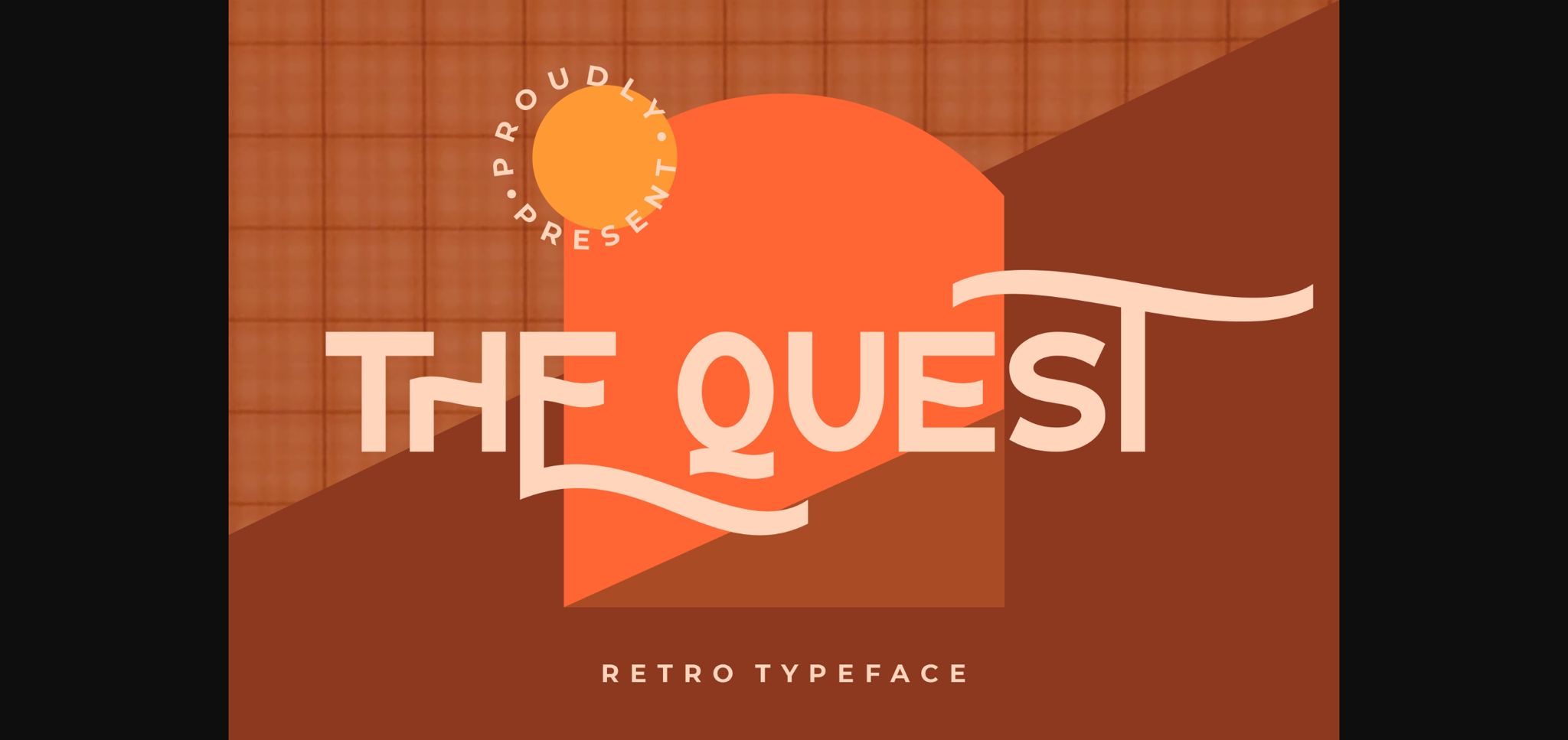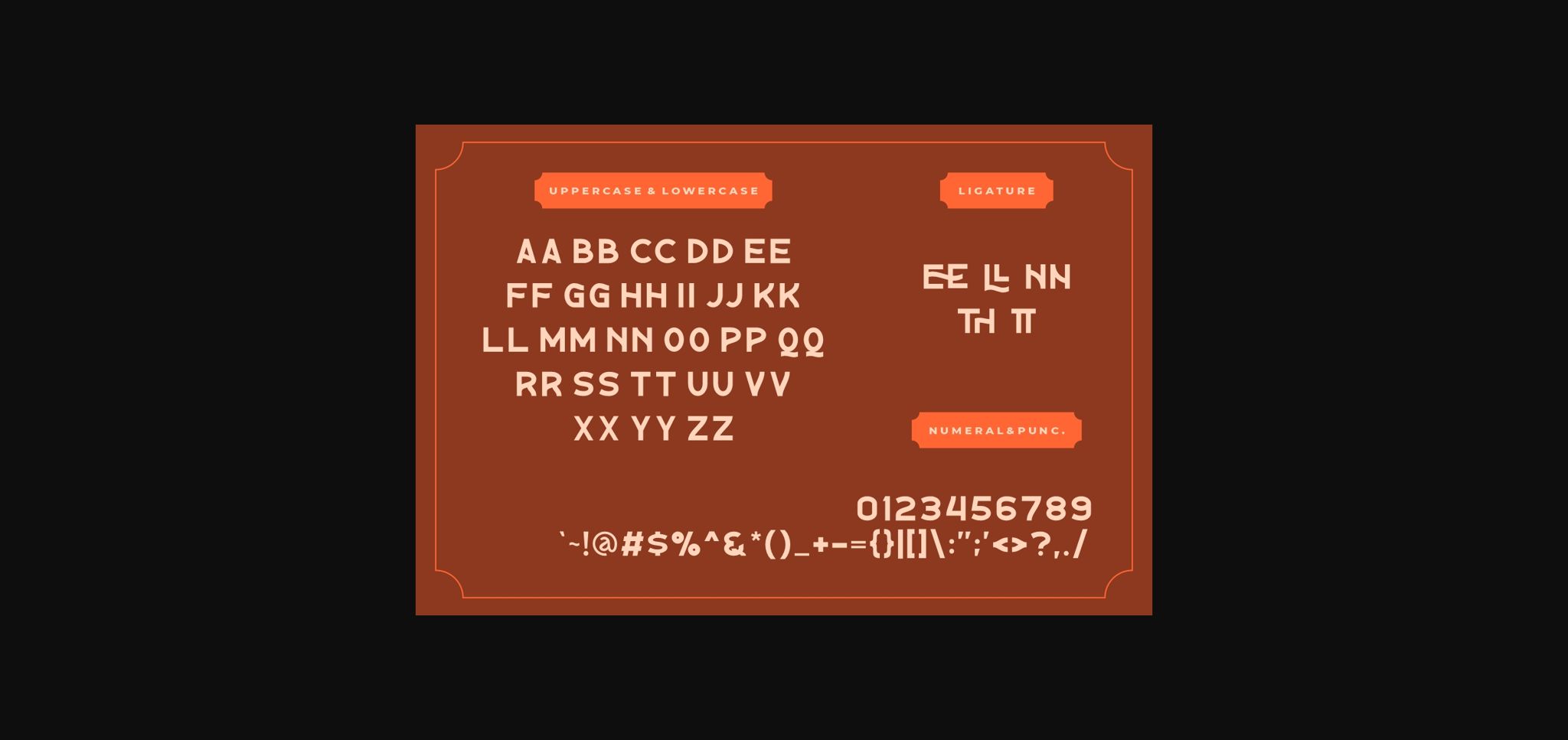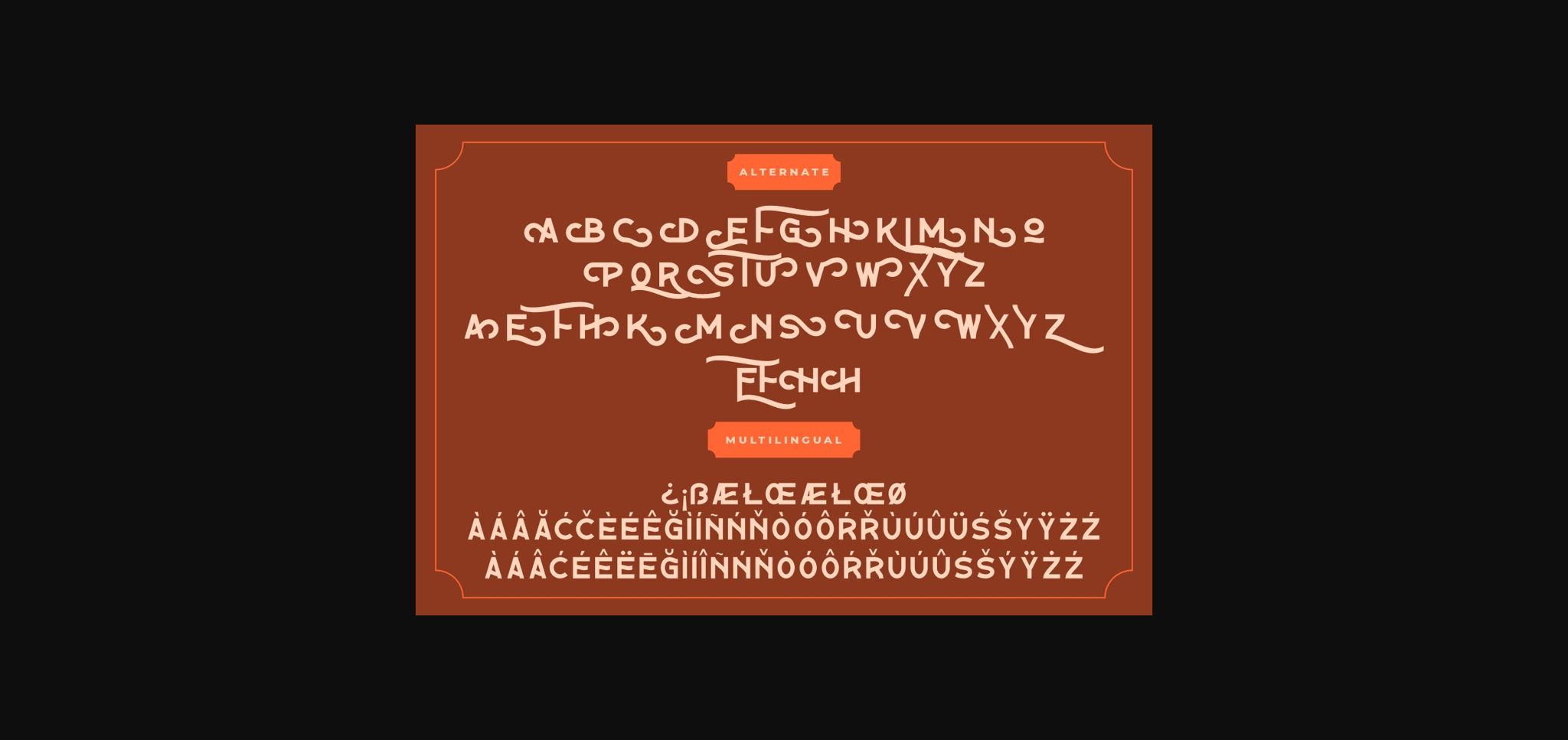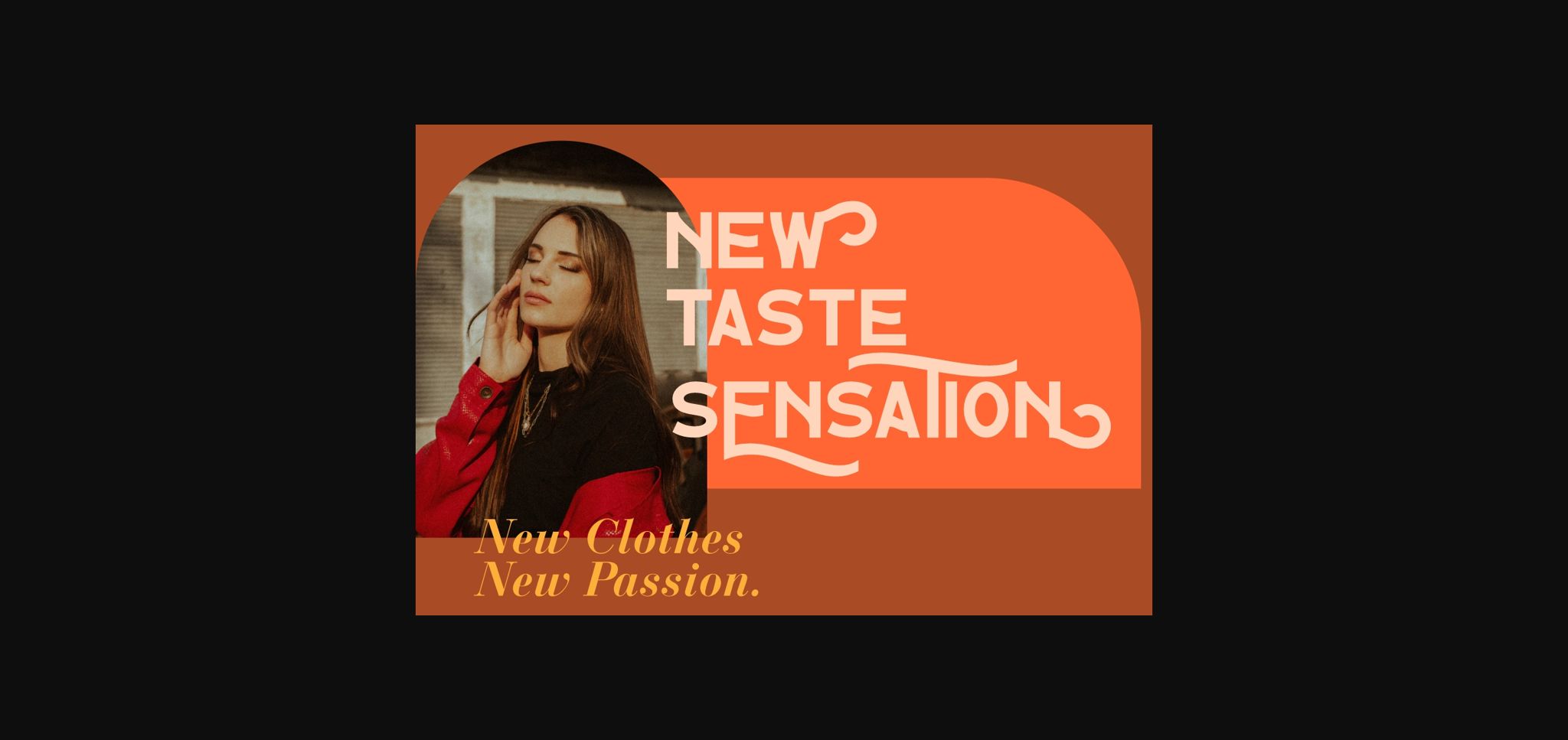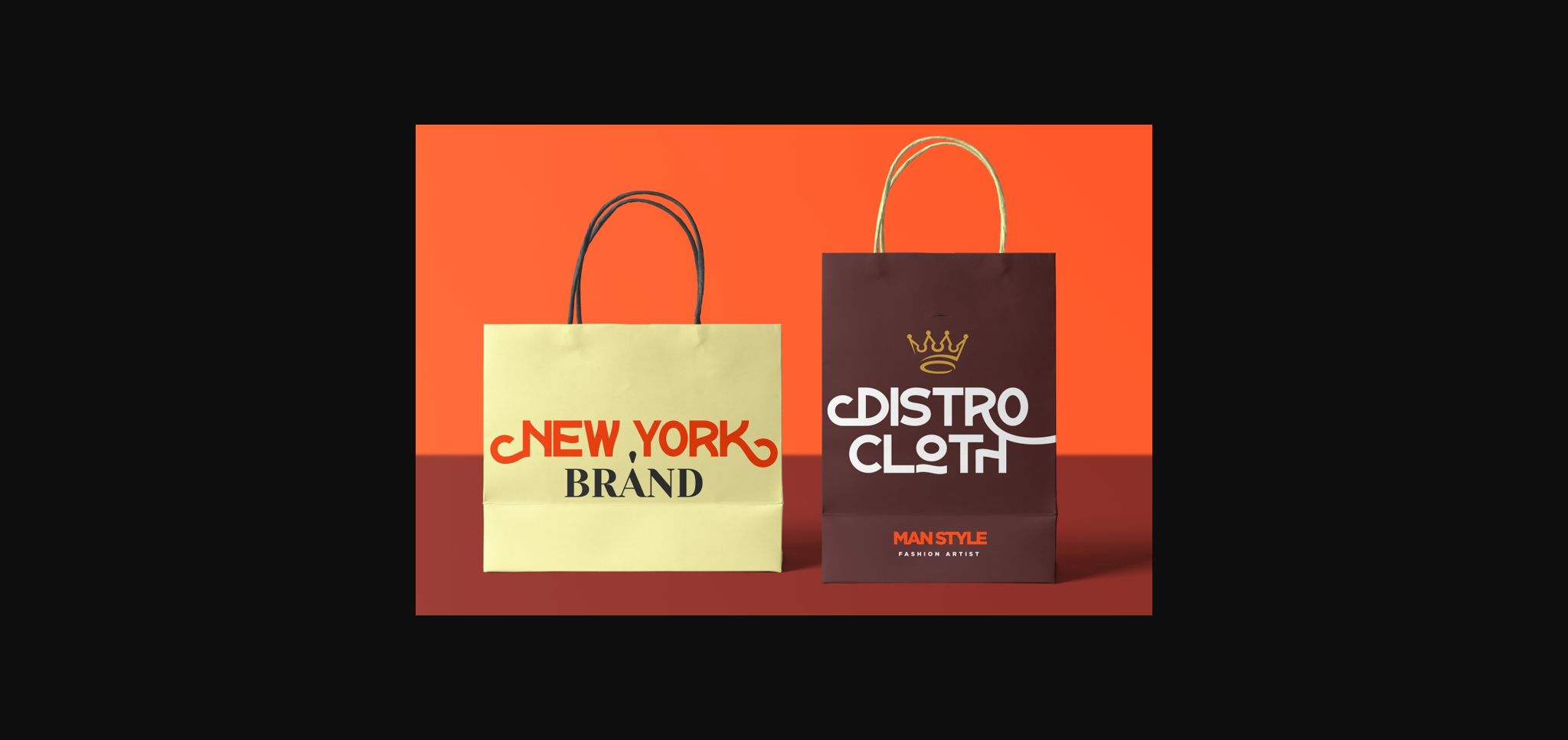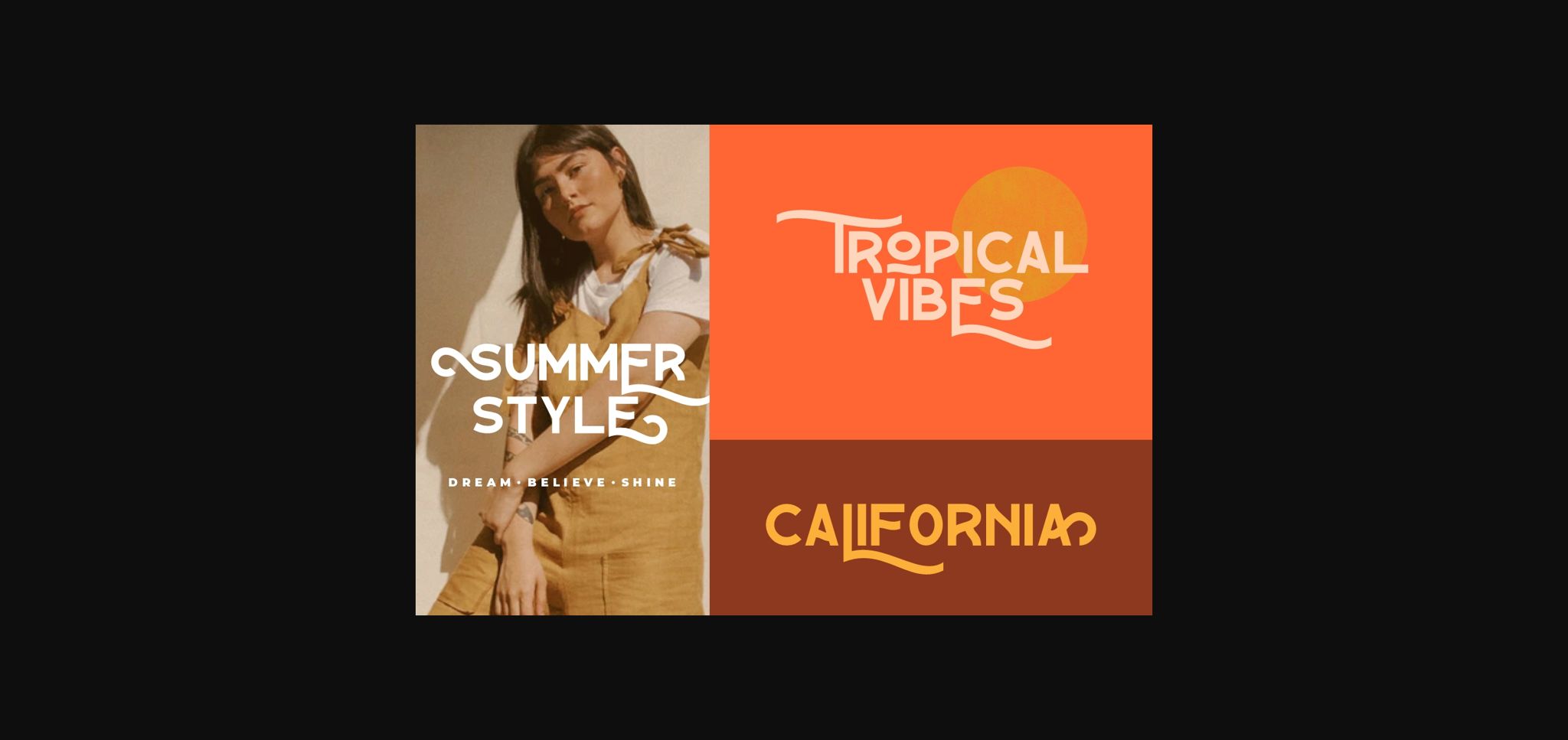
The Quest Font
About The Quest Font
The Quest is a retro styled and delicate sans serif font. This font is neatly crafted and highly detailed. Whatever the topic, this font will be a wonderful asset to your font library, as it has the potential to enhance any creation.